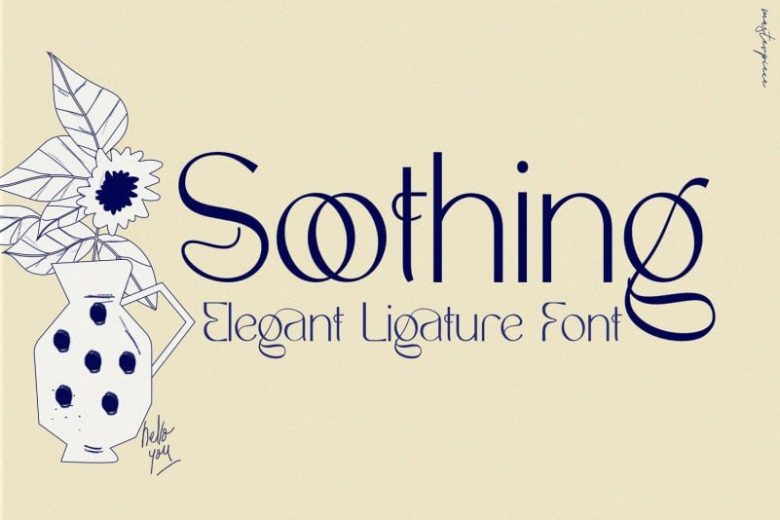
Soothing – Unique Ligature Font
Soothing – Unique Ligature Font is a versatile, modern and classy sans serif font that is really original. It is an elegant, unique font that uses ligatures to smoothly link letters. This is perfect for BRANDING and LOGO DESIGN. You will get classy, elegant, and certainly unique logos with this font.